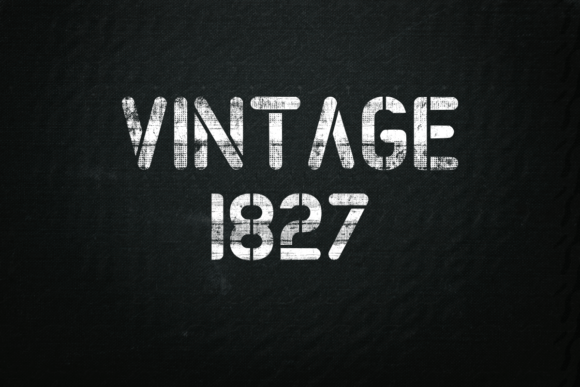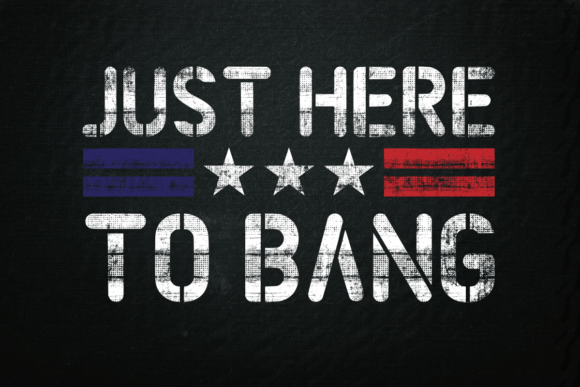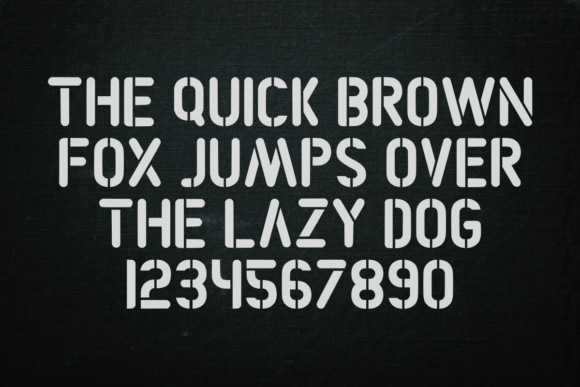
Introduction to Gyowa Font
Gyowa is a modern stencil font in all caps.
This font comes with a rounded corner which makes it look modern and minimalist Gyowa font is perfect for any design that requires a military-style branding and also can be used in another project such as a logo, t-shirts, book covers, stationery, marketing, blogs, magazines, and more.